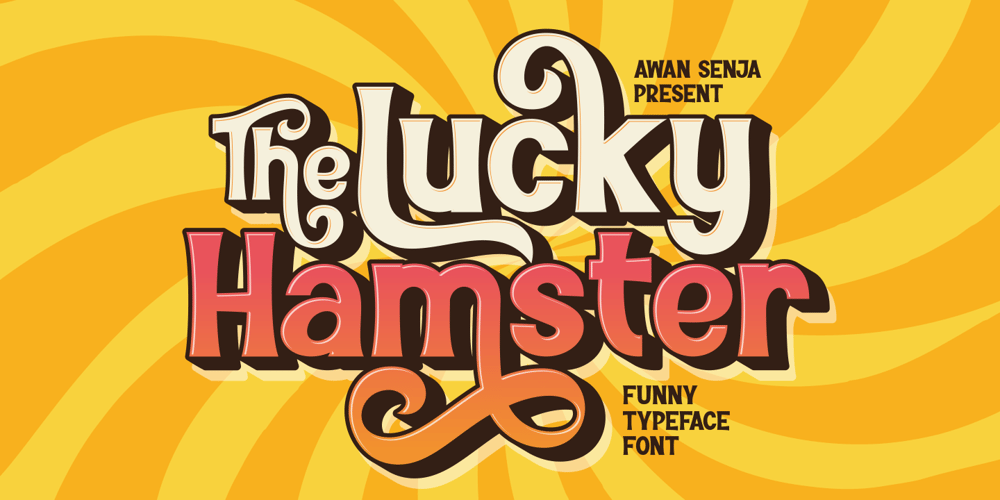
The Lucky Hamster Font Family was designed by Riyadh Abuhafs and published by Awan Senja. The Lucky Hamster contains 1 styles and family package options. Introducing our newest funny typeface with cool stylistic alternate , The Lucky Hamster, a funny typeface font. This font perfectly made to be in poster funny, and the other various formal forms such as invitations, labels, logos, magazines, books, packaging, fashion, make up, stationery, novels, labels or any type of advertising purpose.